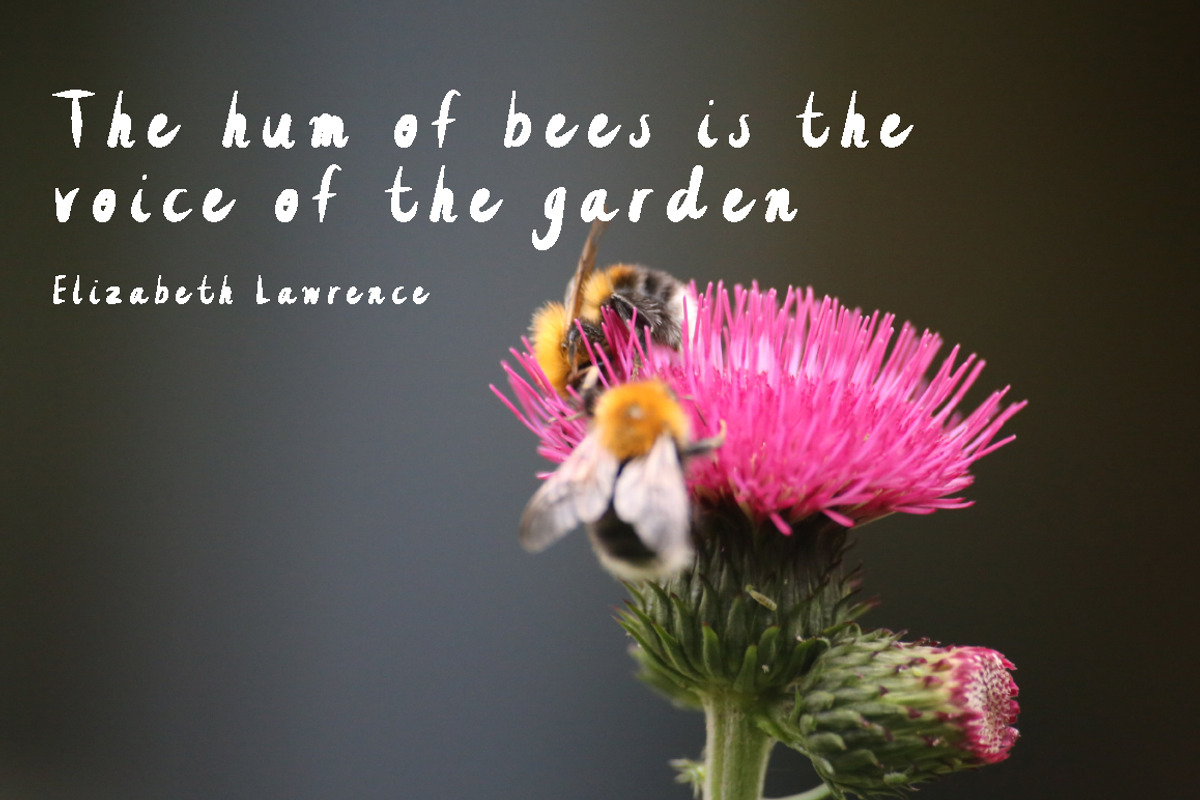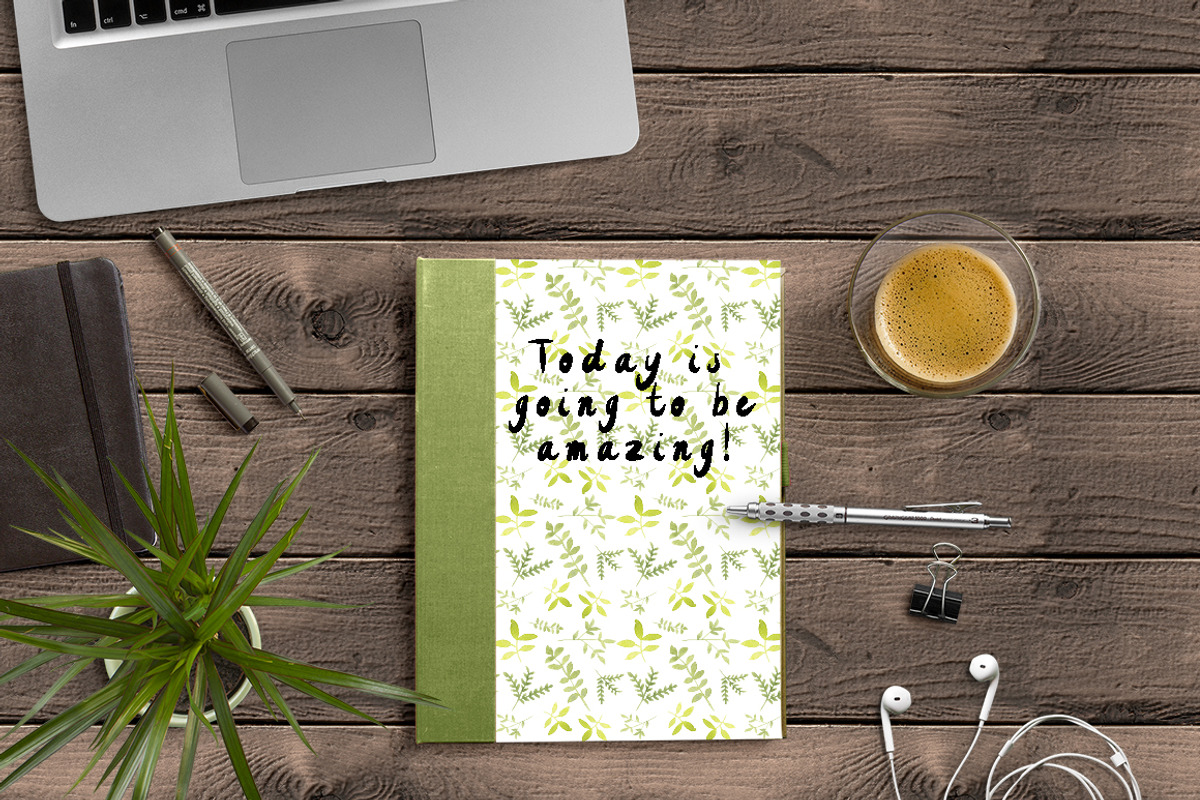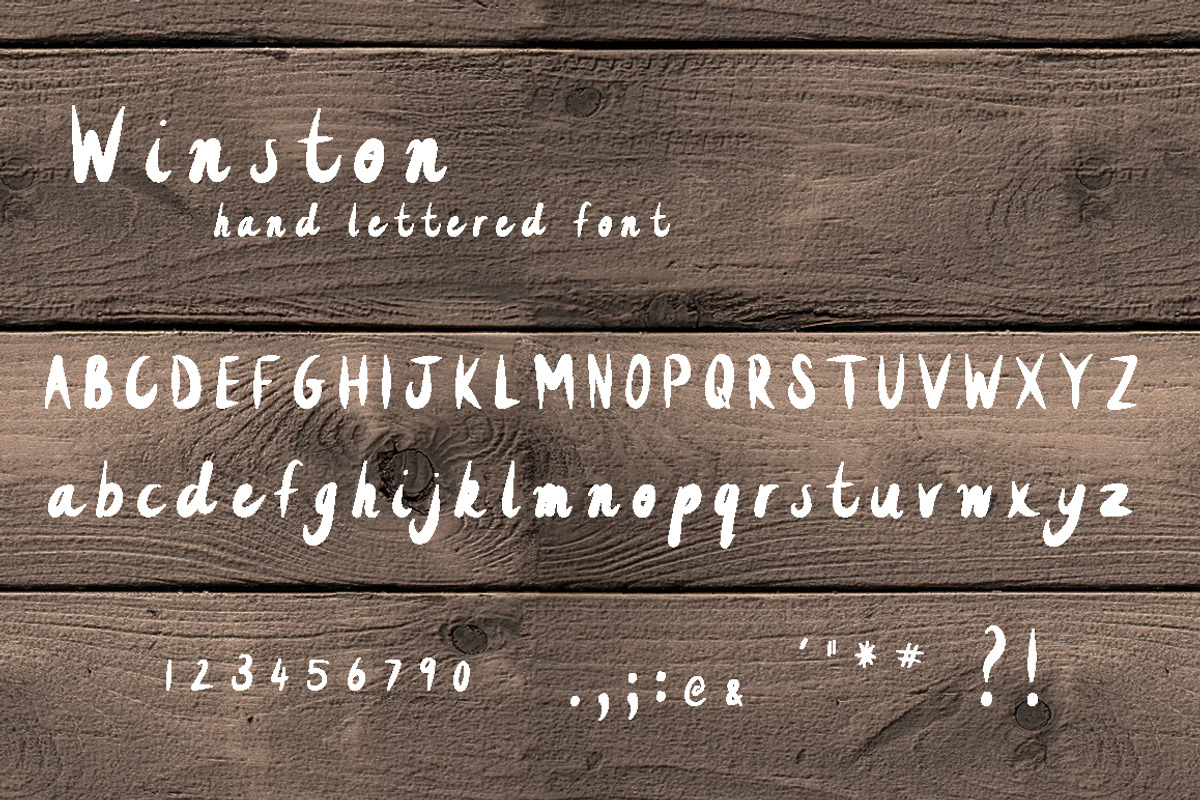
Winston - hand lettered font
Winston - hand lettered font by Emjwalker is a font selected for branding, posters, packaging, typography.
Why Winston - hand lettered font is worth a look
Winston - hand lettered font by Emjwalker fits naturally into Branding, posters, packaging, typography.